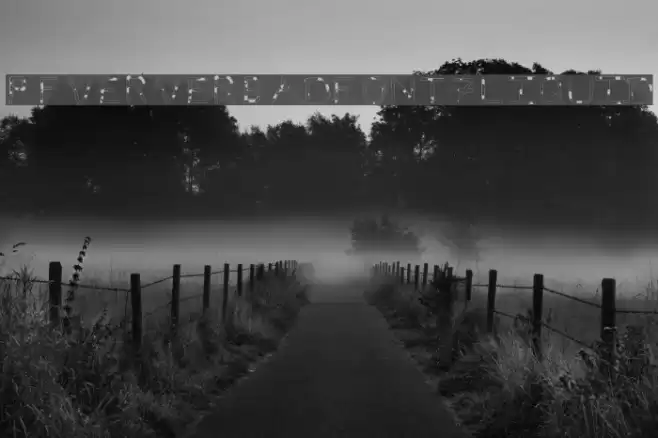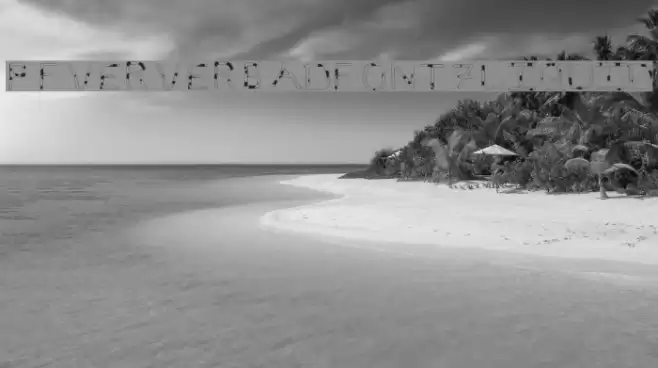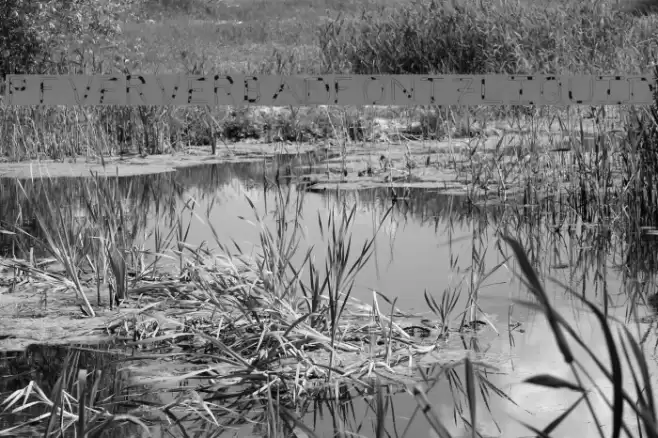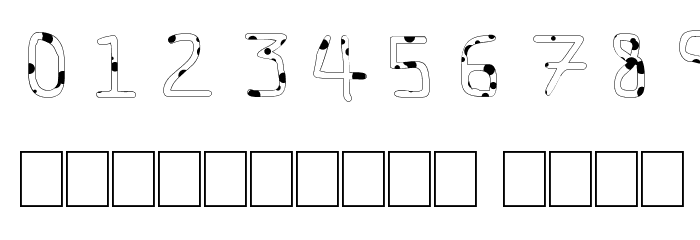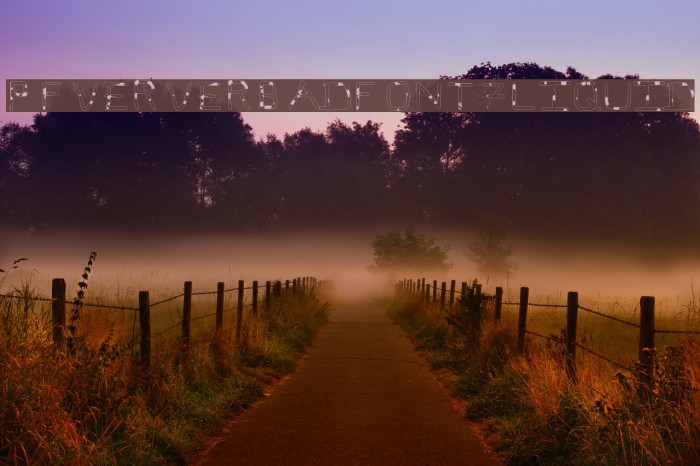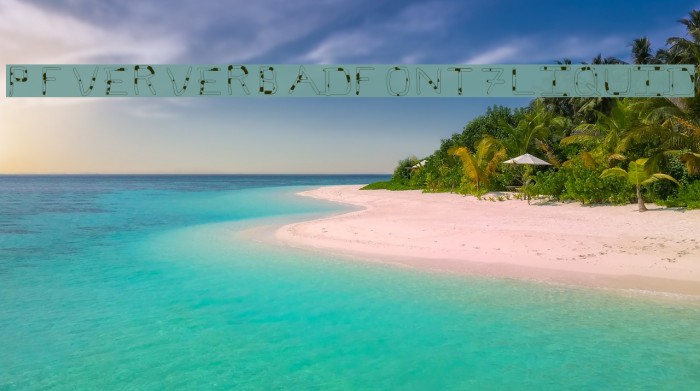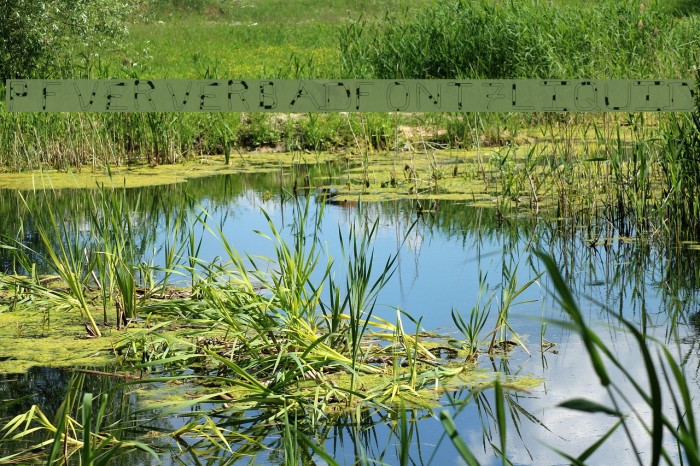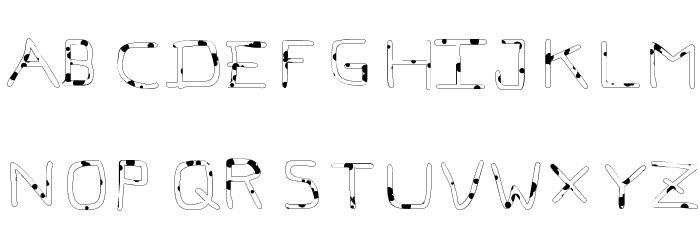
Pf_veryverybadfont7-Liquid Font
Pf_veryverybadfont7-Liquid Description
This font features a unique, liquid-like design with irregular, flowing patterns within each character. The letters and numbers have a playful and abstract appearance, resembling ink blots or splashes. The overall style is highly decorative and unconventional, making it stand out with its artistic and fluid characteristics. The characters maintain a consistent height and width, but the internal patterns vary, adding to the dynamic and unpredictable nature of the font. This design is not suited for traditional text but excels in creative and artistic applications.
A decorative font with liquid-like, abstract patterns within each character from Crazy fonts.
- Proposed Projects: Ideal for artistic projects, creative posters, album covers, or any design requiring a unique, eye-catching typeface.
- Use Case: Logos, Posters, Artistic Designs